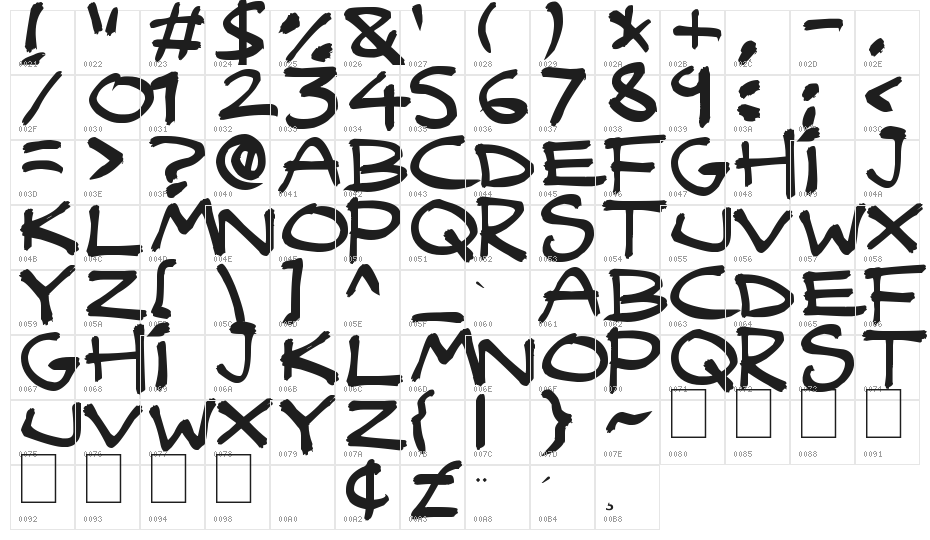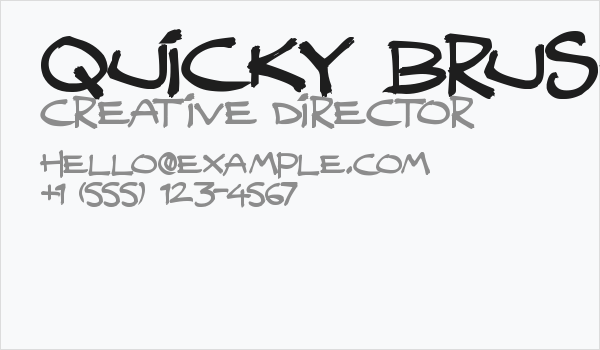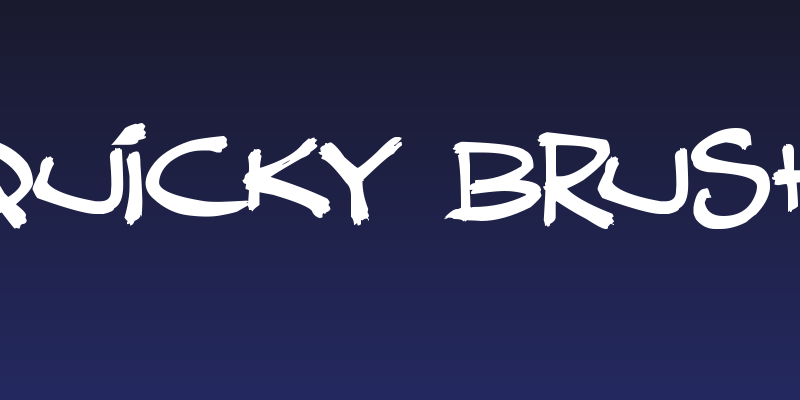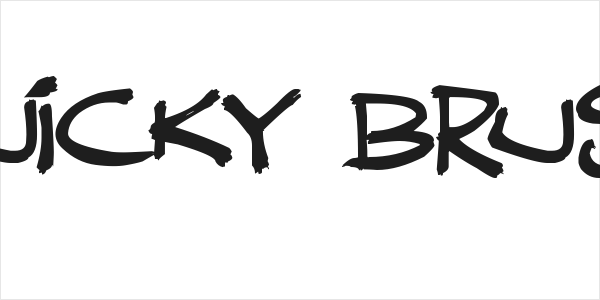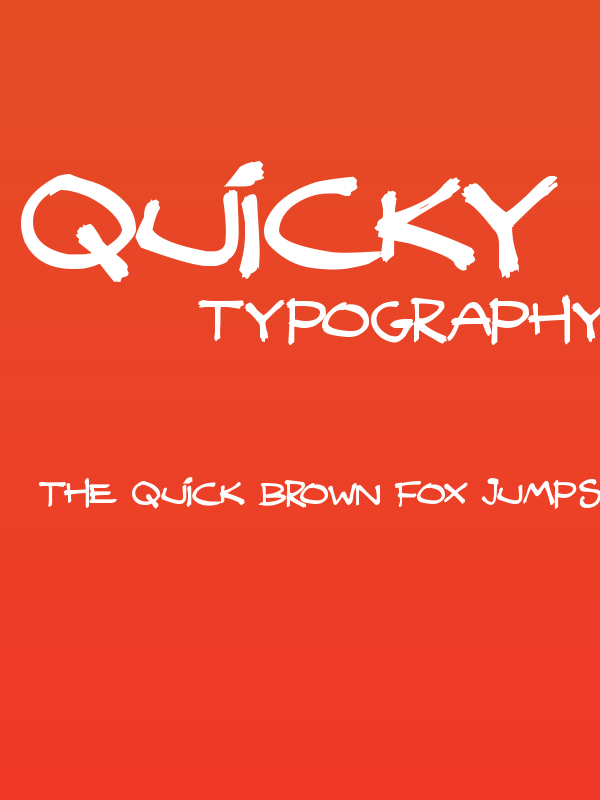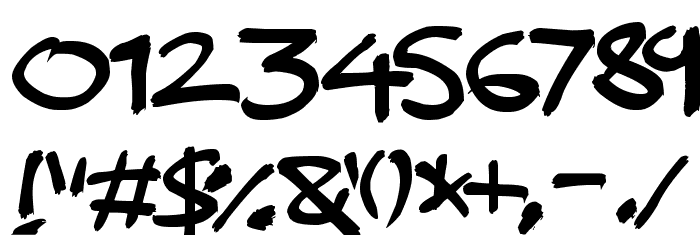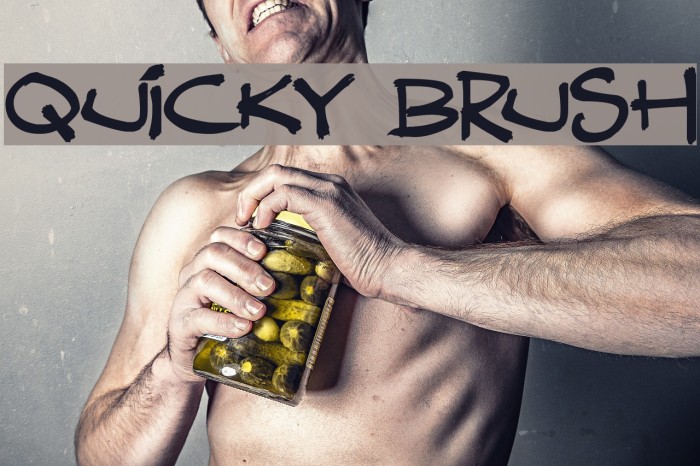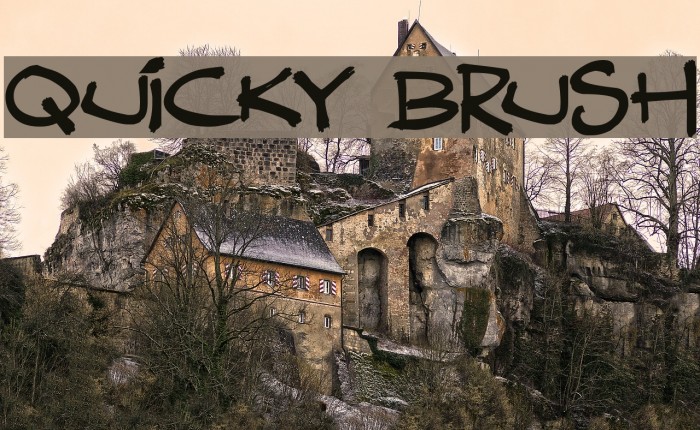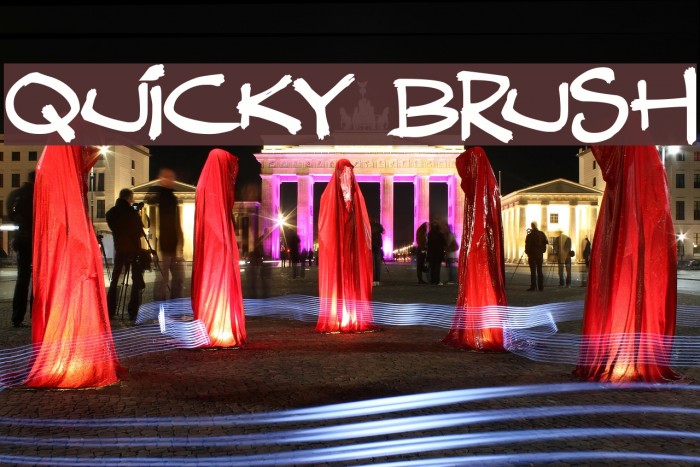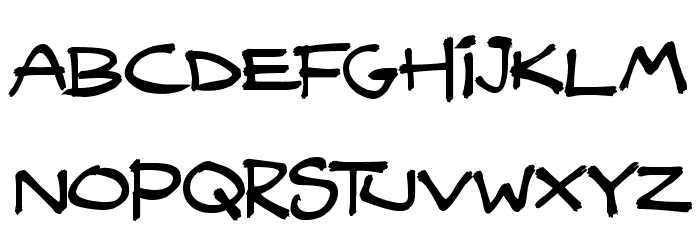
Quicky Brush Font
Quicky Brush Description
This font exudes a dynamic and energetic feel, characterized by its bold, brush-like strokes that convey a sense of movement and spontaneity. The letters are slightly irregular, adding a handcrafted, artistic touch that makes it stand out. The uppercase and lowercase letters maintain a consistent style, with rounded edges and varying stroke widths that enhance its lively appearance. The numbers and special characters follow the same expressive style, ensuring uniformity across all glyphs. This font is perfect for projects that require a personal, informal, or creative flair.
| Use Case | Logos, Posters, Creative projects |
| Proposed Projects | Ideal for posters, logos, branding, and creative projects that require a lively, artistic touch. |